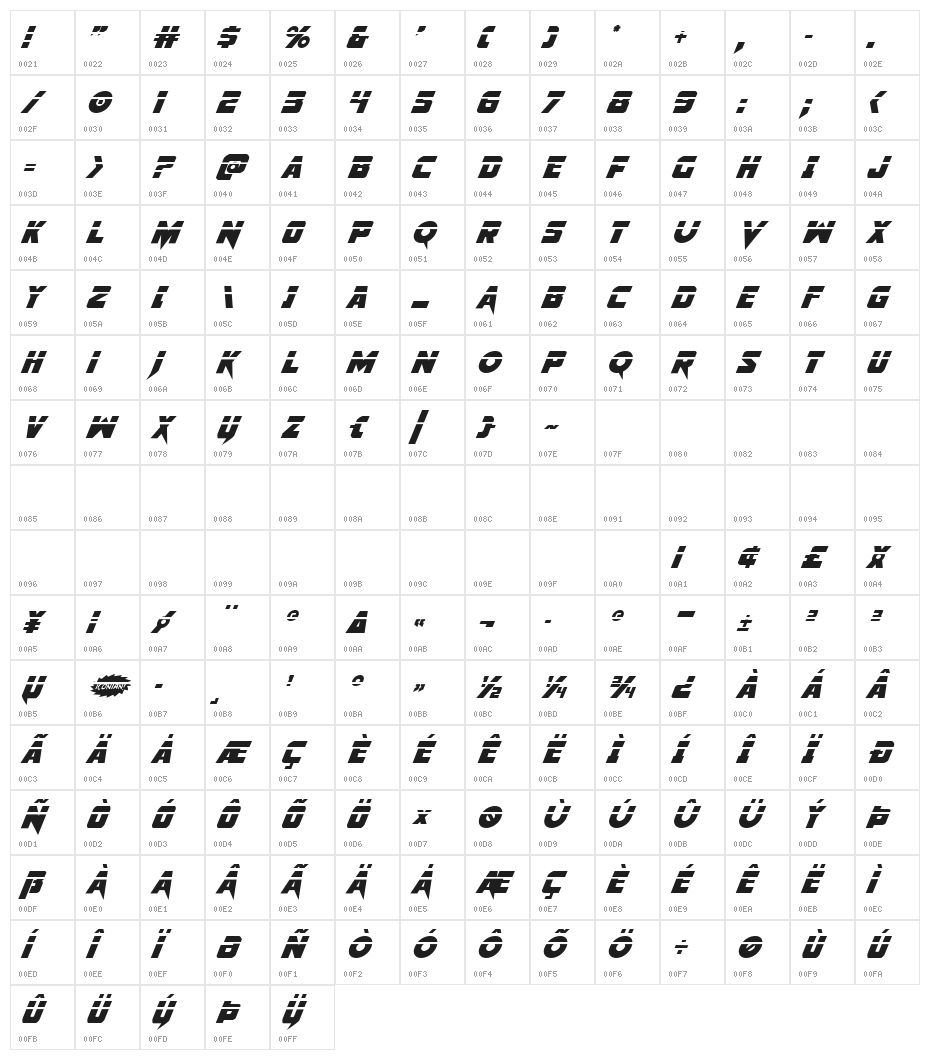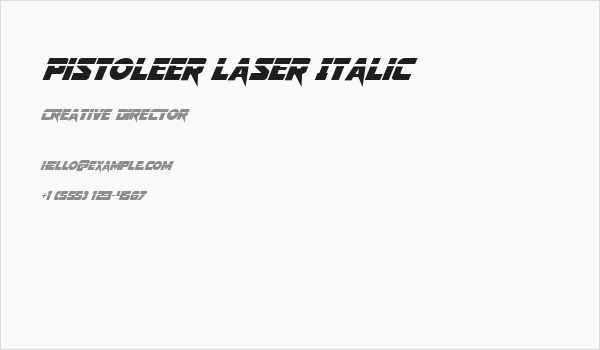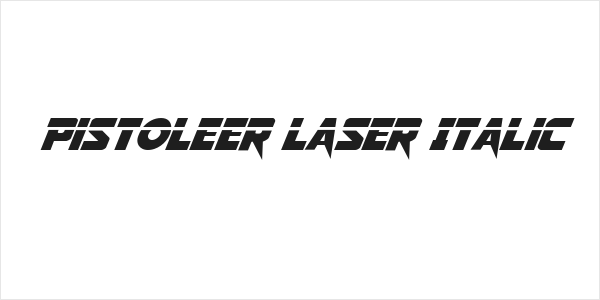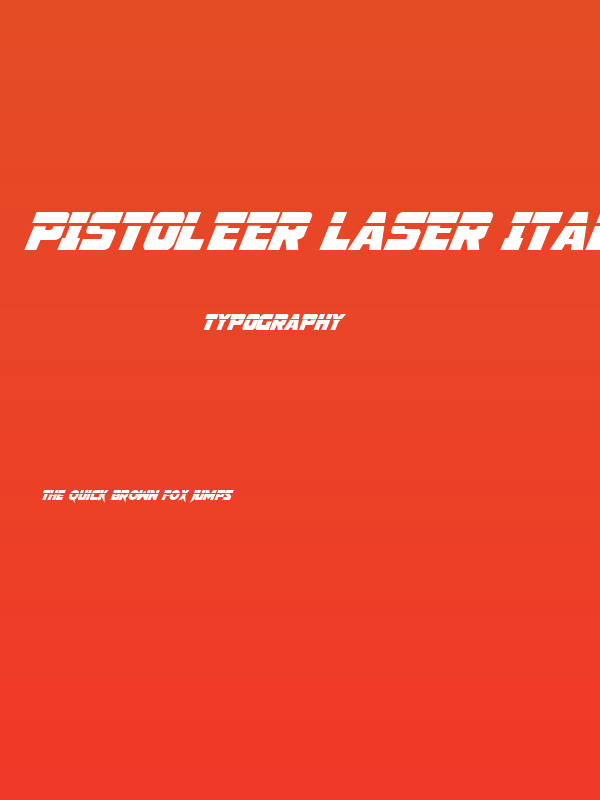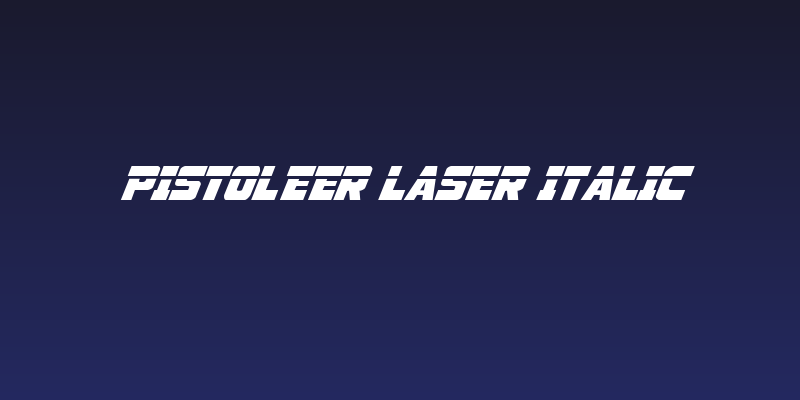
Pistoleer Laser Italic Font
Pistoleer Laser Italic Description
This font features a bold and dynamic style with sharp, angular edges and a futuristic aesthetic. The characters are italicized, giving a sense of motion and speed. The uppercase and lowercase letters maintain a consistent design, with exaggerated serifs and pointed terminals that add a unique flair. The numbers and special characters follow the same bold and angular design, ensuring uniformity across all glyphs. The font's aggressive and modern look makes it suitable for projects that require a strong visual impact.
| Proposed Projects | Ideal for sci-fi themed designs, video game titles, movie posters, and branding that requires a modern and edgy look. |